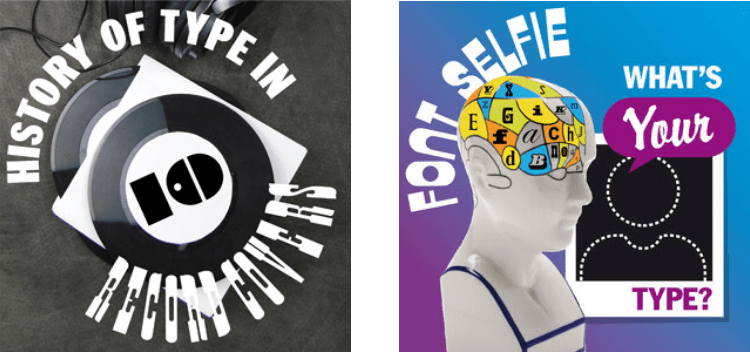
Learn about the psychology of typography & the ‘secret’ messages hidden in plain sight. Learn as you drink at a fun and boozy social event. Learn about the language of chocolate wrappers or the history of type told in 10 record covers…
Learn the secrets of letters
LONDON TYPE SAFARI
Route 2: Crafted by hand
Learn why you judge a shop by its sign. Discover the influence of sign writers, history and secrets hidden in signs & joy of DIY lettering.
With new ‘smell along’ activities
Painting with fonts, 3 days only SCARY LETTERS & FRIGHTENING FONTS
One-hour online workshops with a blood-curdling cocktail or mocktail recipe, do you dare?
Cultural curiosity
THE HISTORY OF TYPE IN 10 RECORD COVERS
Learn about type history in this fun and fast-paced tour of a record collection.
Professional development
WHAT’S YOUR TYPE?
Learn from research how to pick fonts with confidence so you can create the right first impression to get results.
Professional development
DECODING TYPE TRENDS (semiotics)
Professional development
PSYCHOLOGY OF TYPOGRAPHY (an introduction)
Cultural curiosity
WRAPPERS! THE LANGUAGE OF CHOCOLATE
With BYO taste-along menu